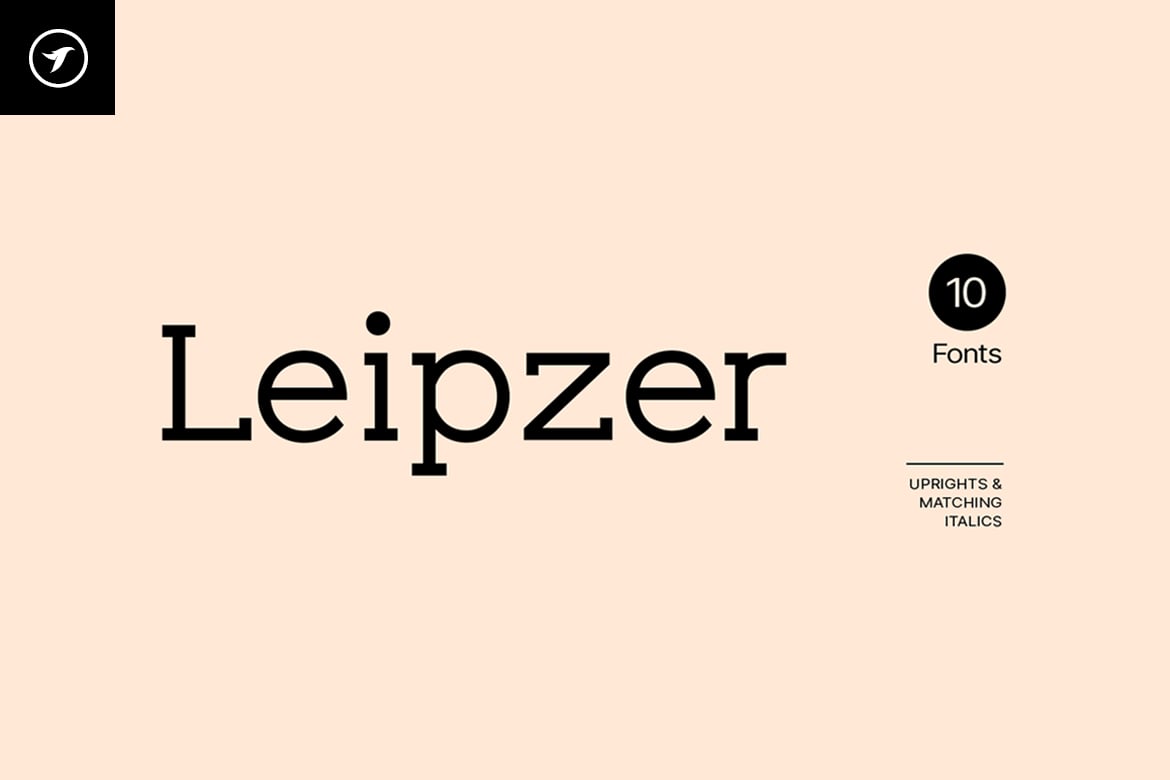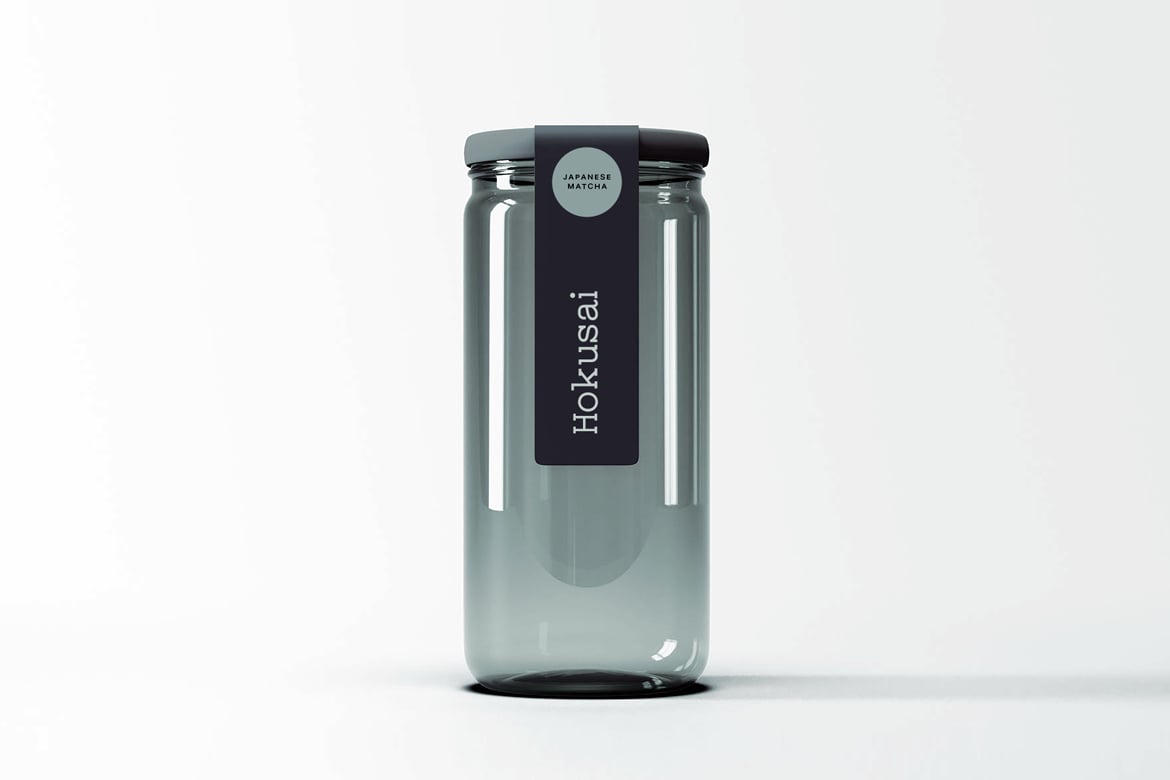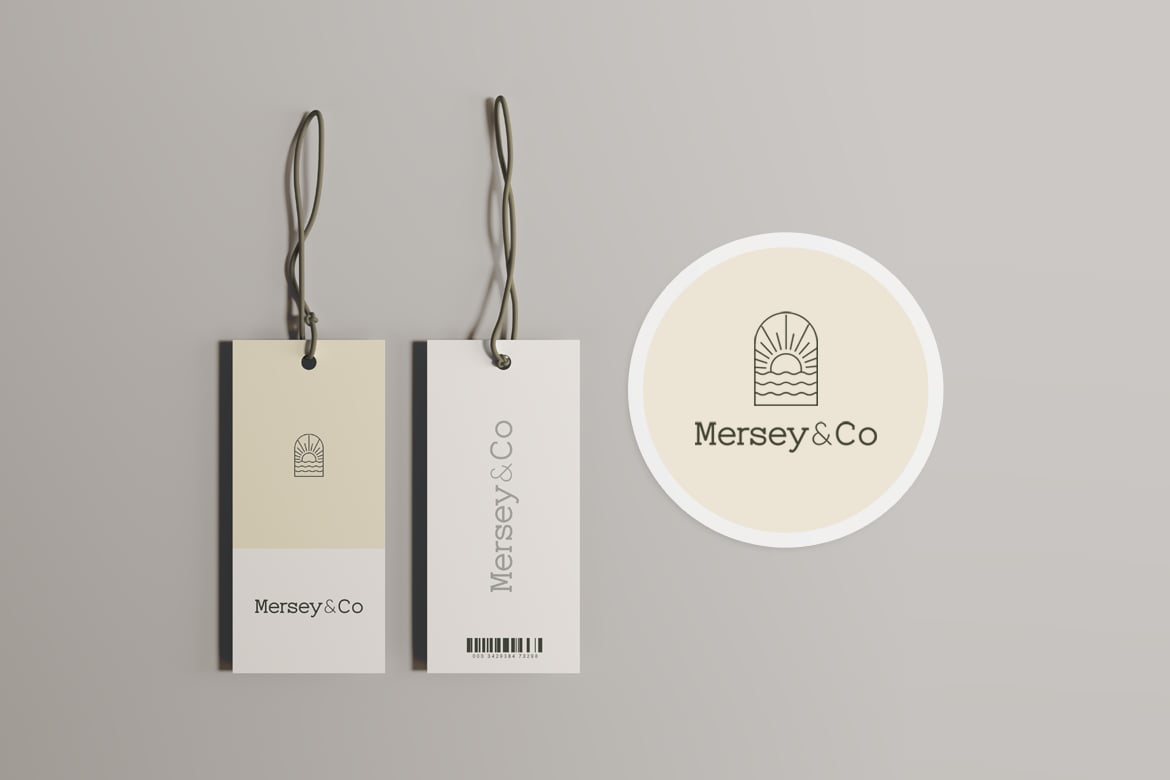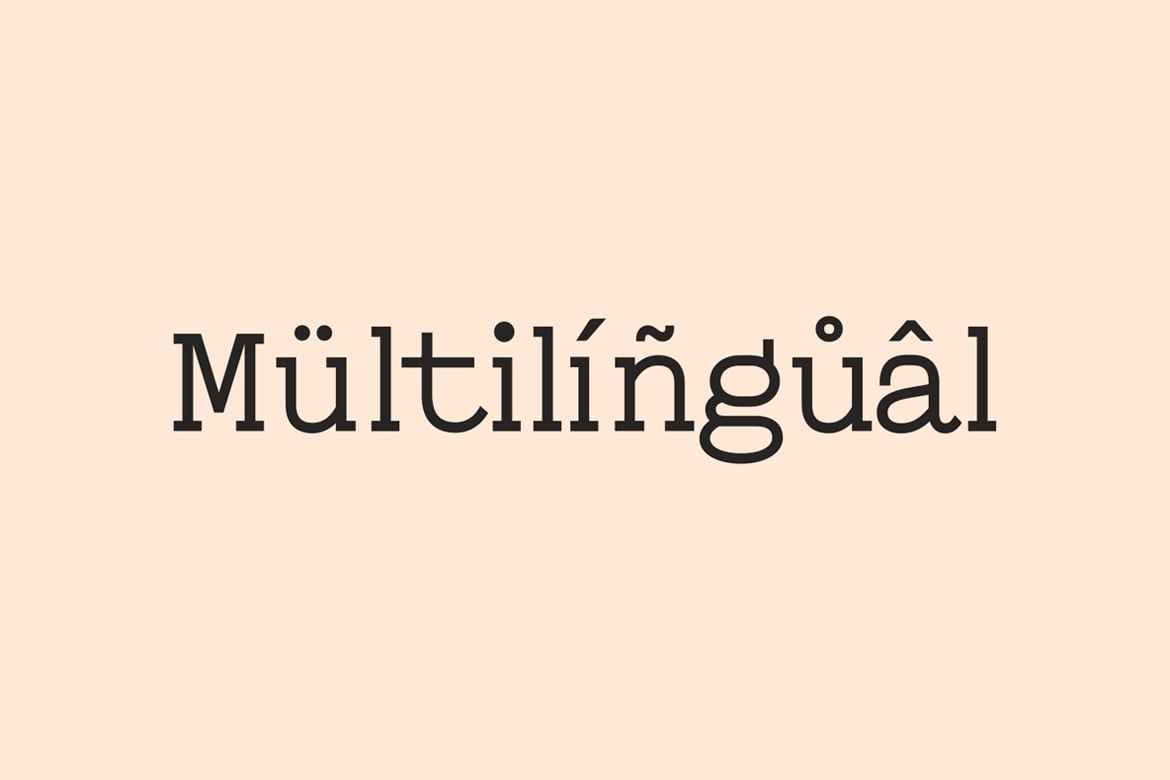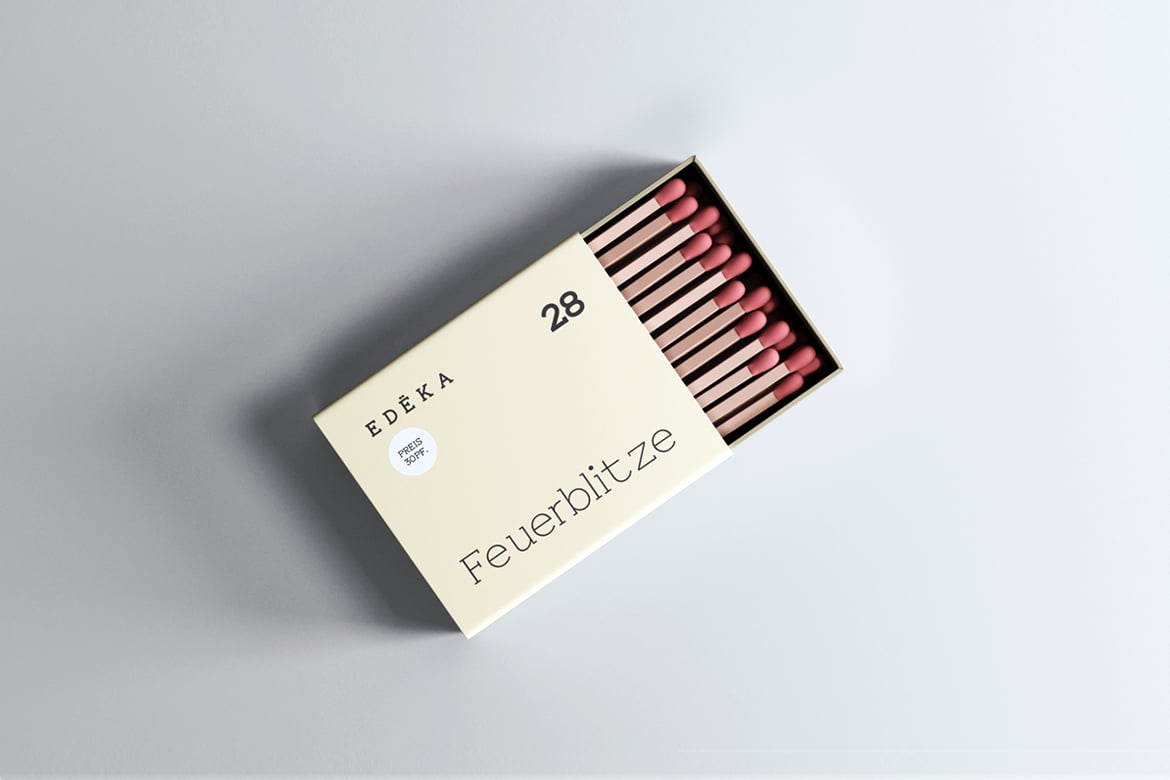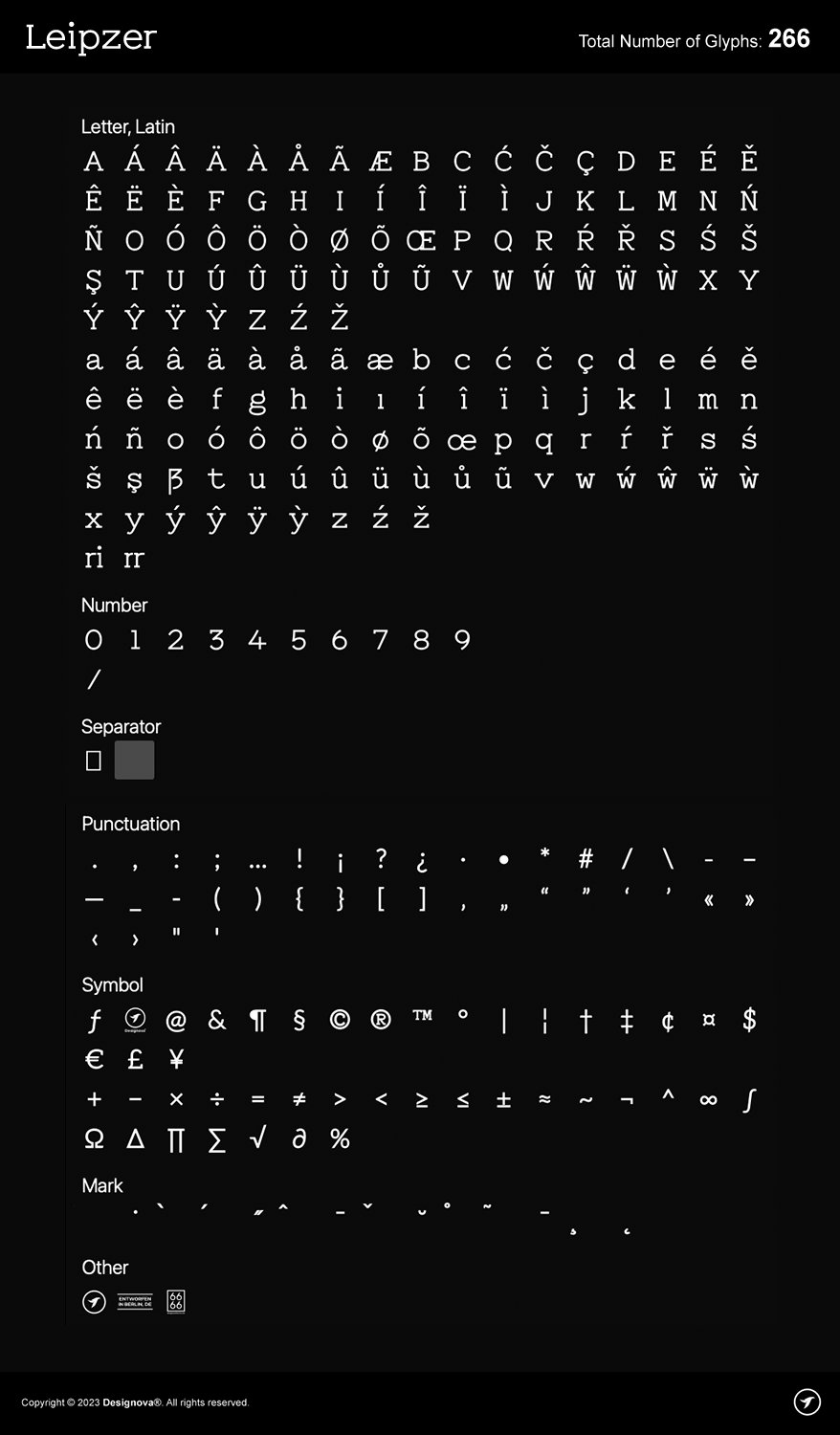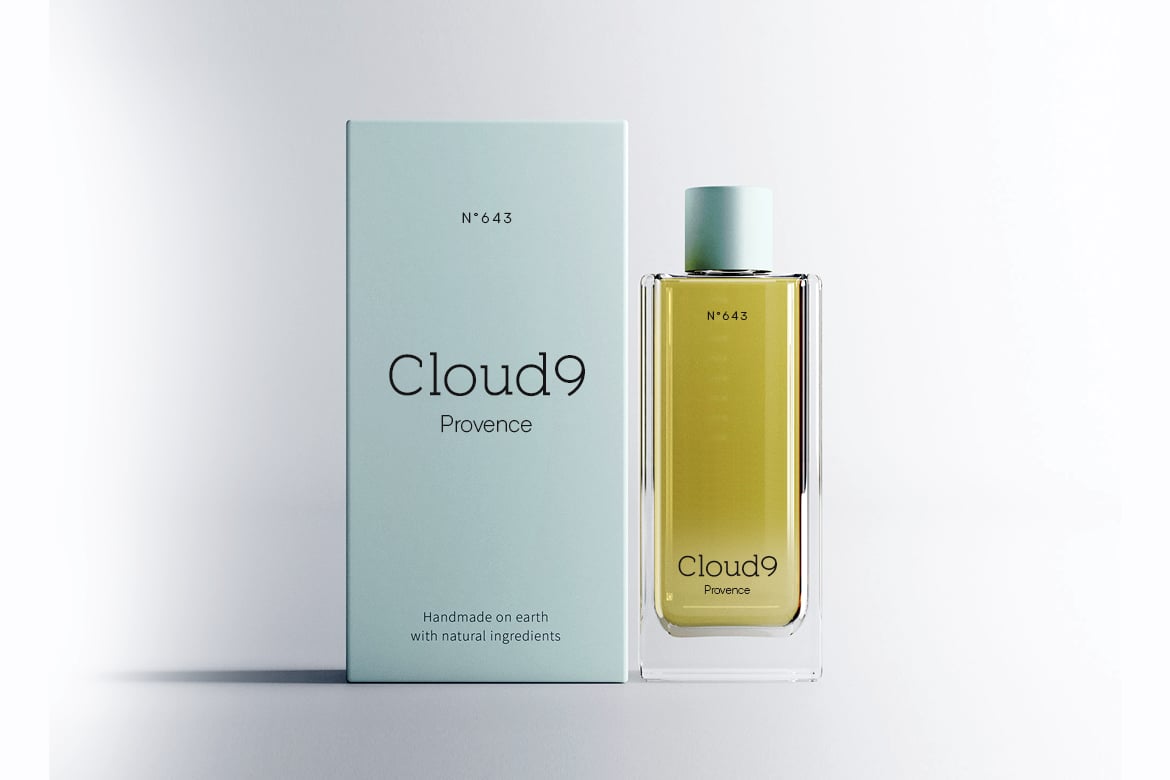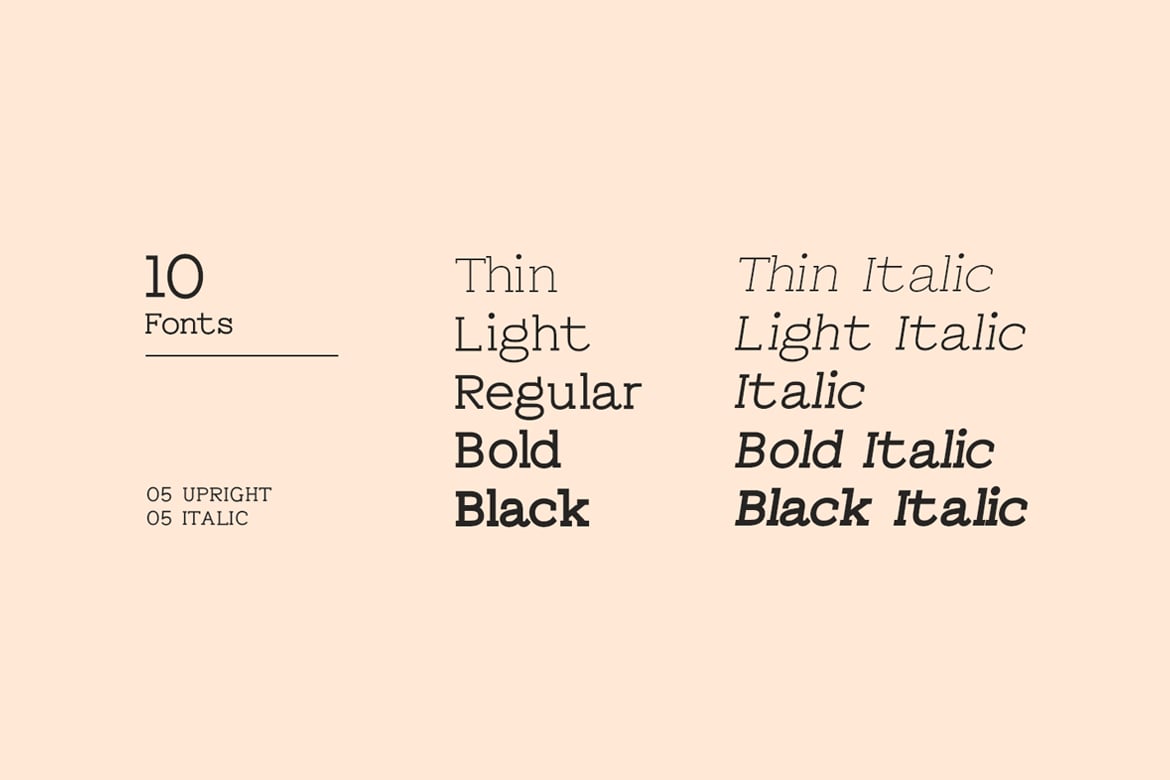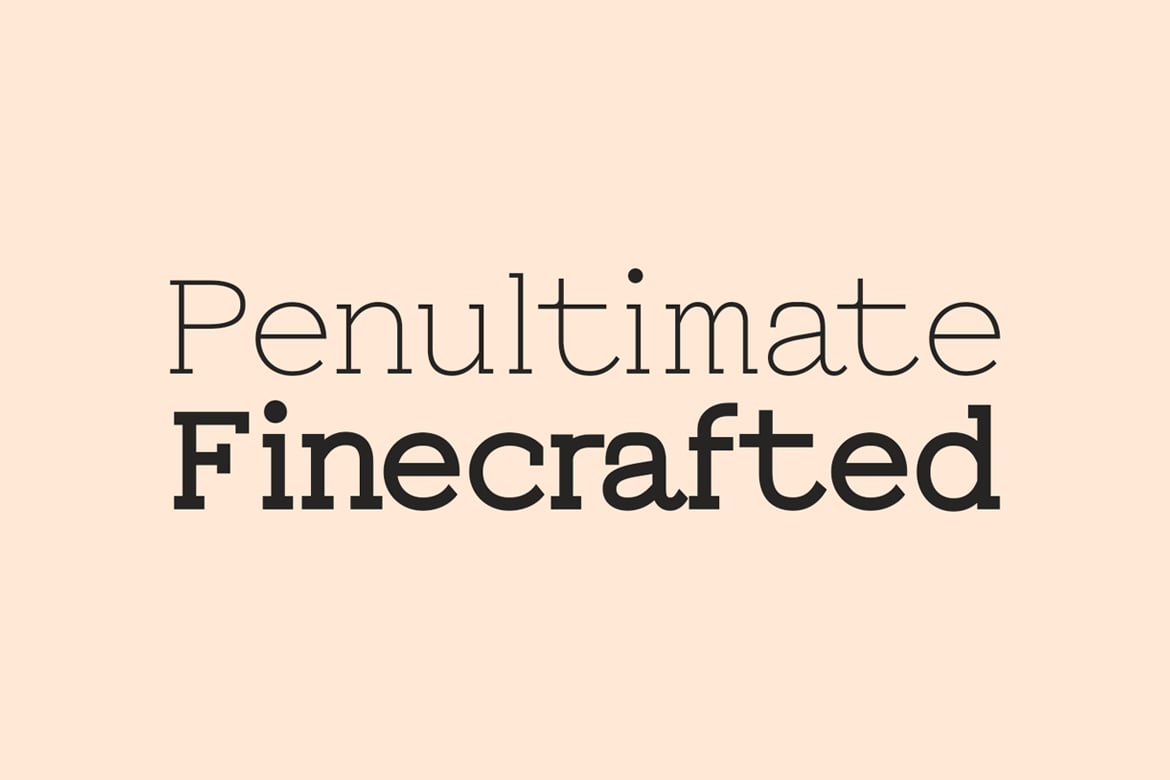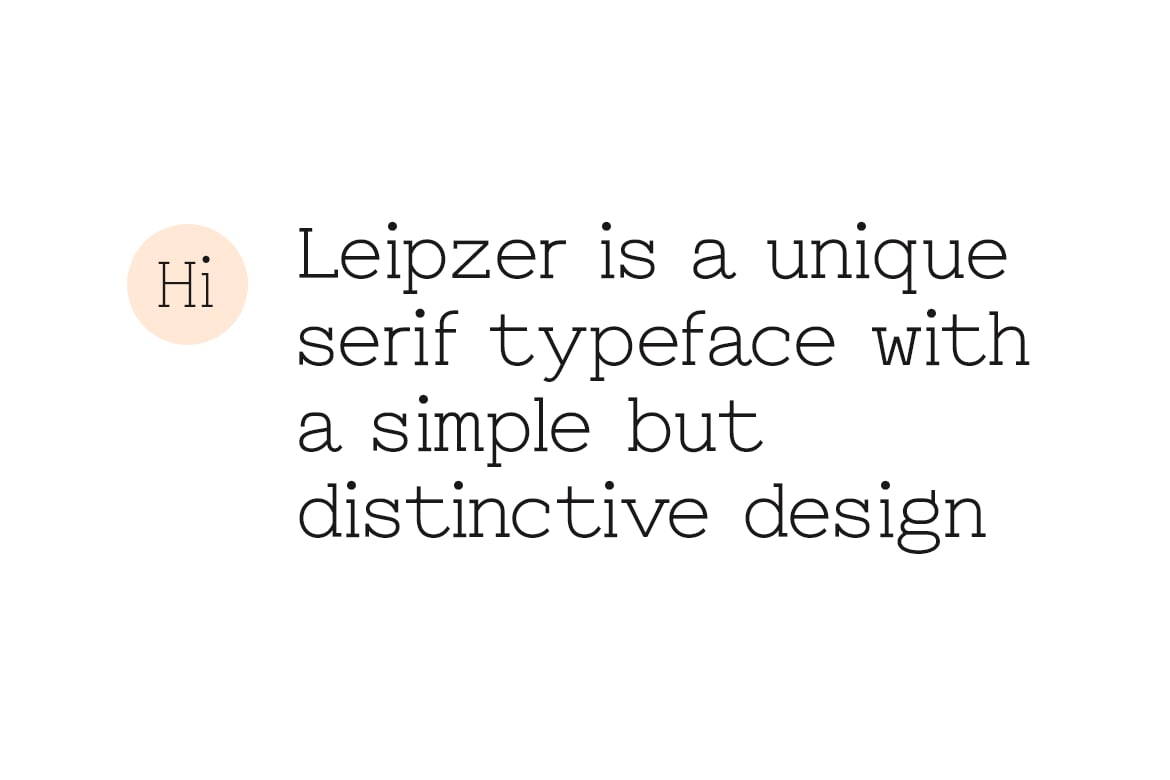
Leipzer – A Simple Serif Typeface
Leipzer is a serif typeface with a modern feel that is suitable for various magazines, logos, branding, photography, invitations, wedding invitations, quotes, blog headers, posters, advertisements, postcards, books, websites, etc.
The font is very flexible in terms of your creativity, you can adjust the letterspacing to design unique textual presentations, especially for creating amazing logotypes and branding designs. Please see the examples shown above to get an idea of the capability of this typeface.
The font comes with extended language support including Western European, Central European, and South-Eastern European character sets (a total of 266 glyphs).
The Leipzer family includes 10 fonts with 5 upright weights (Thin, Light, Regular, Bold, Black) and italic versions of each weight. The pack contains OTF, and TTF as Desktop fonts and optional Web Fonts (all EOT, SVG, TTF, WOFF, and WOFF2 formats included)